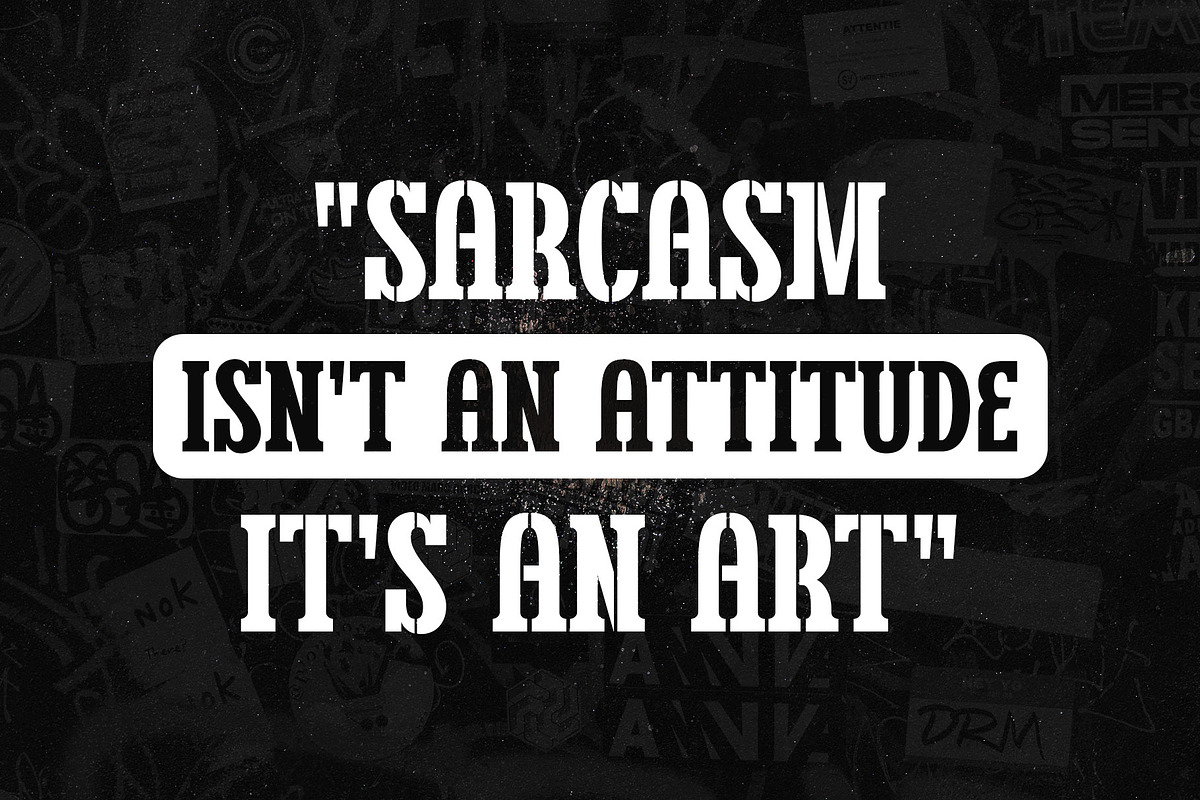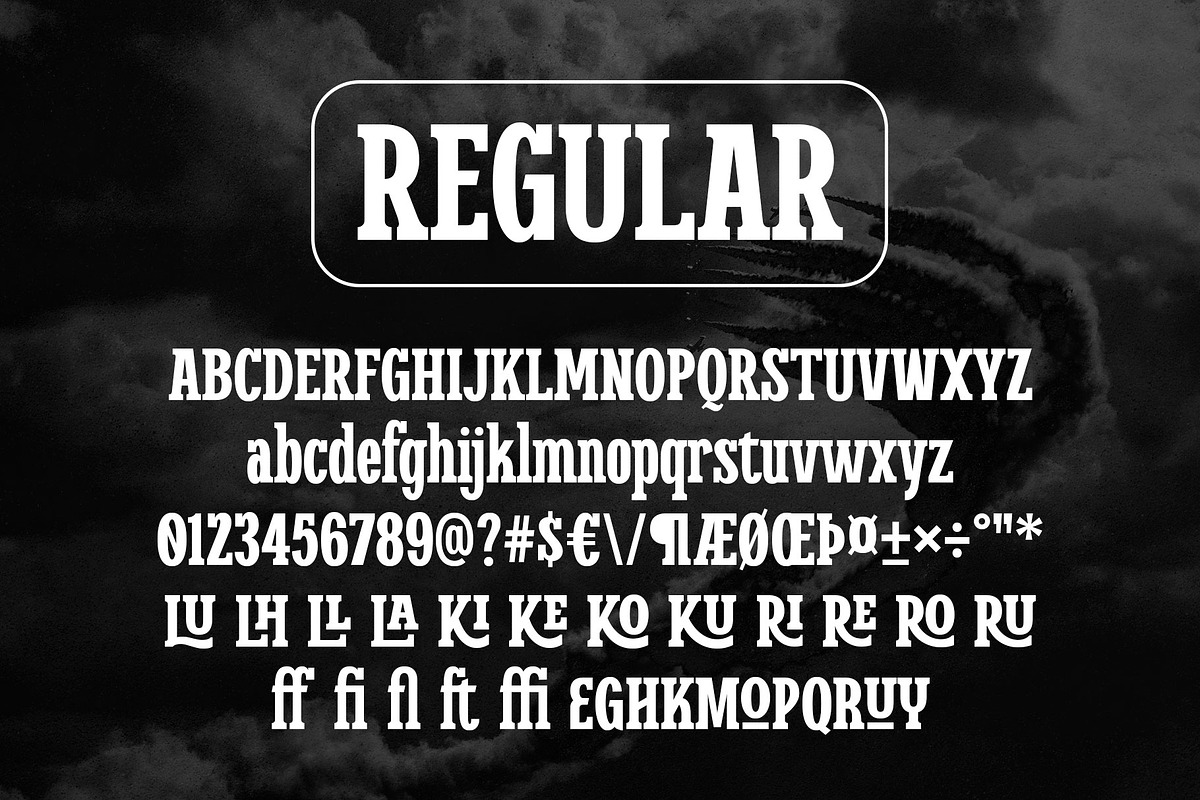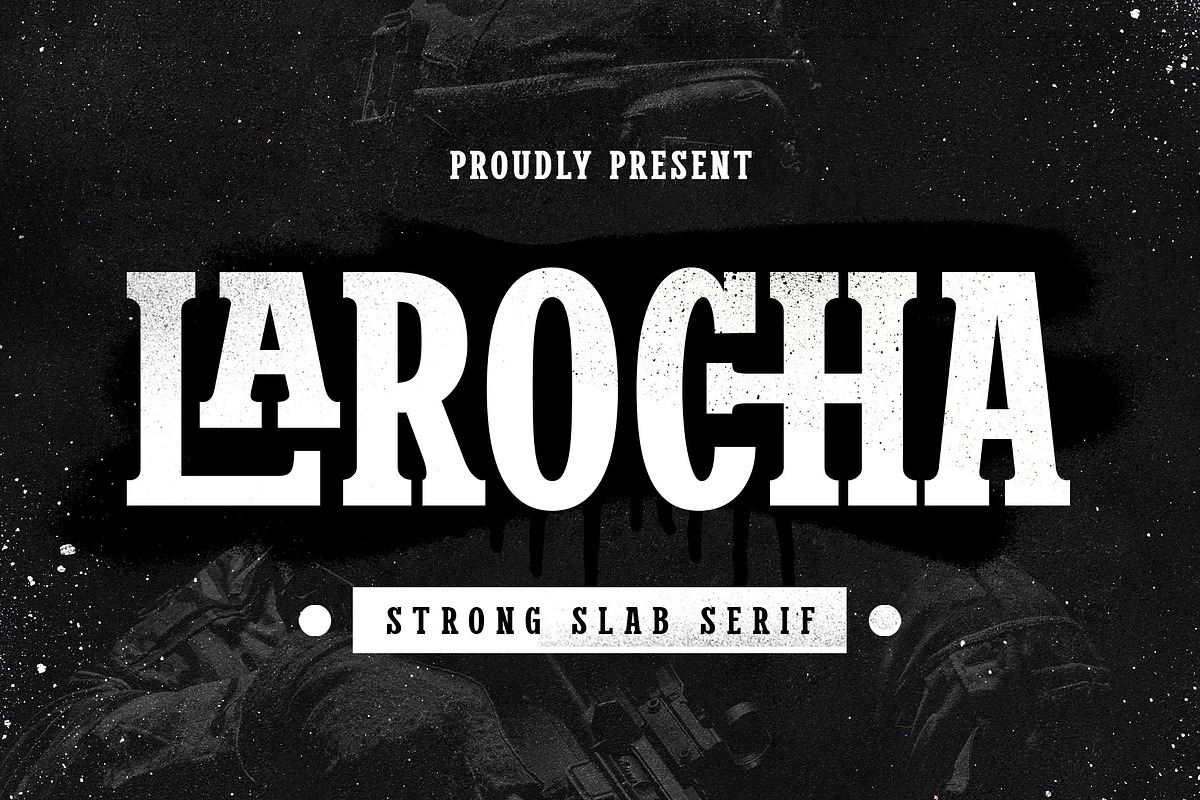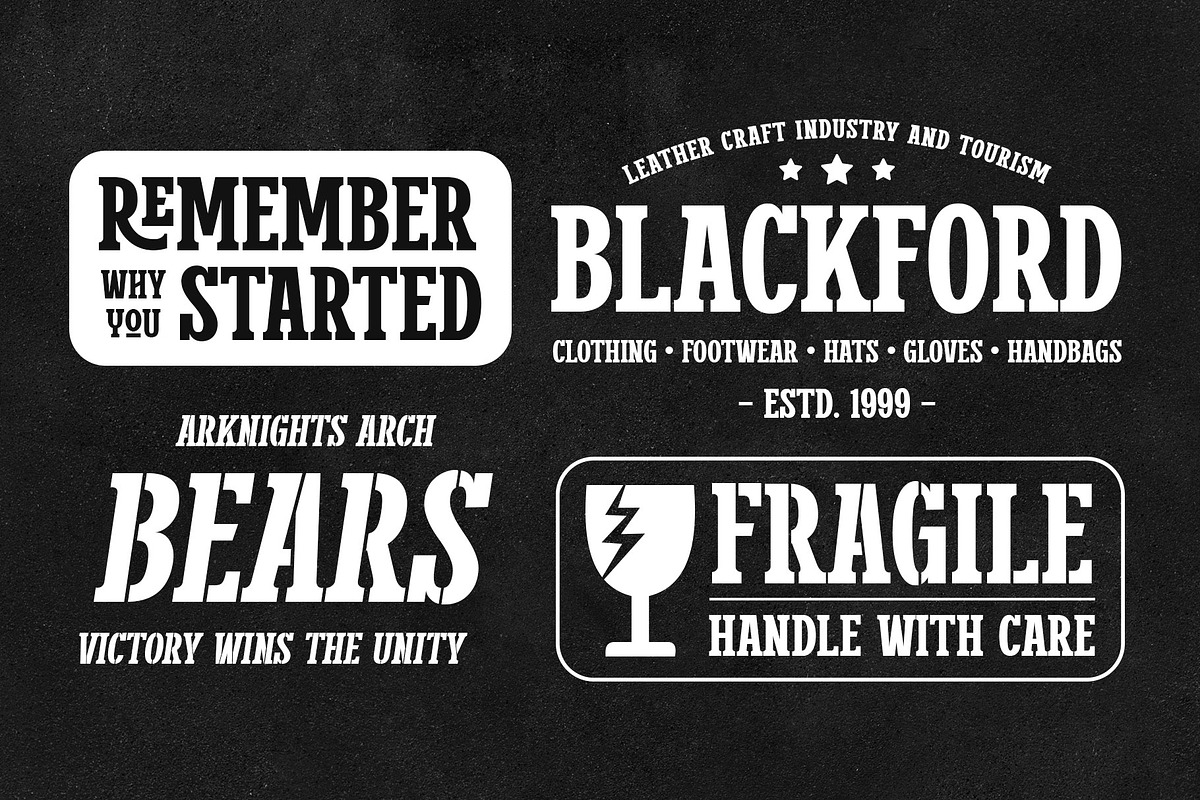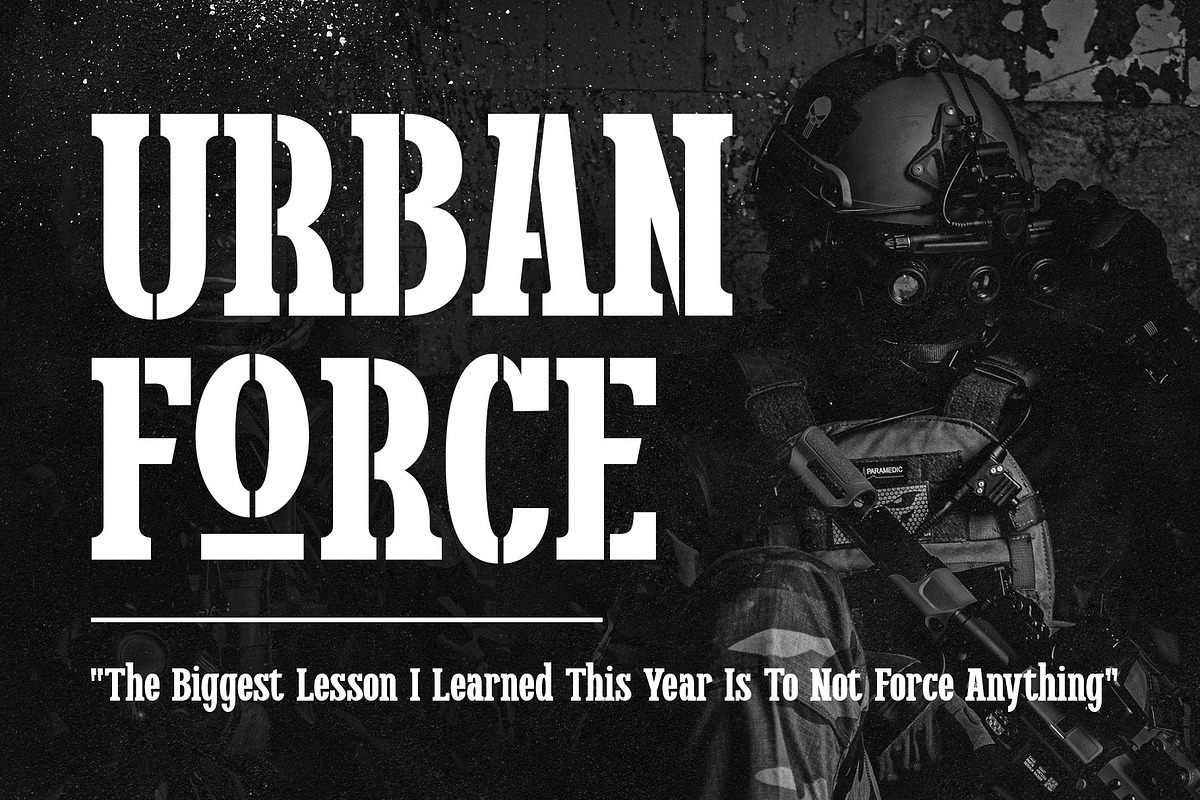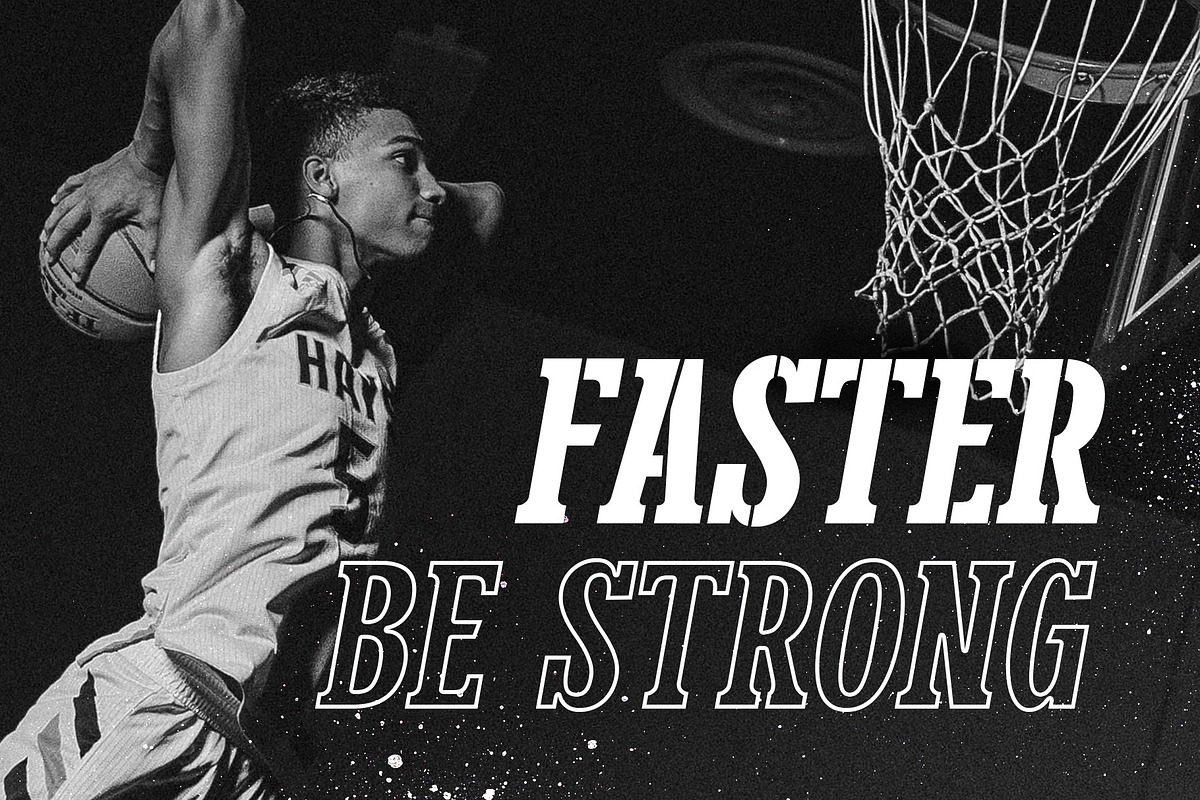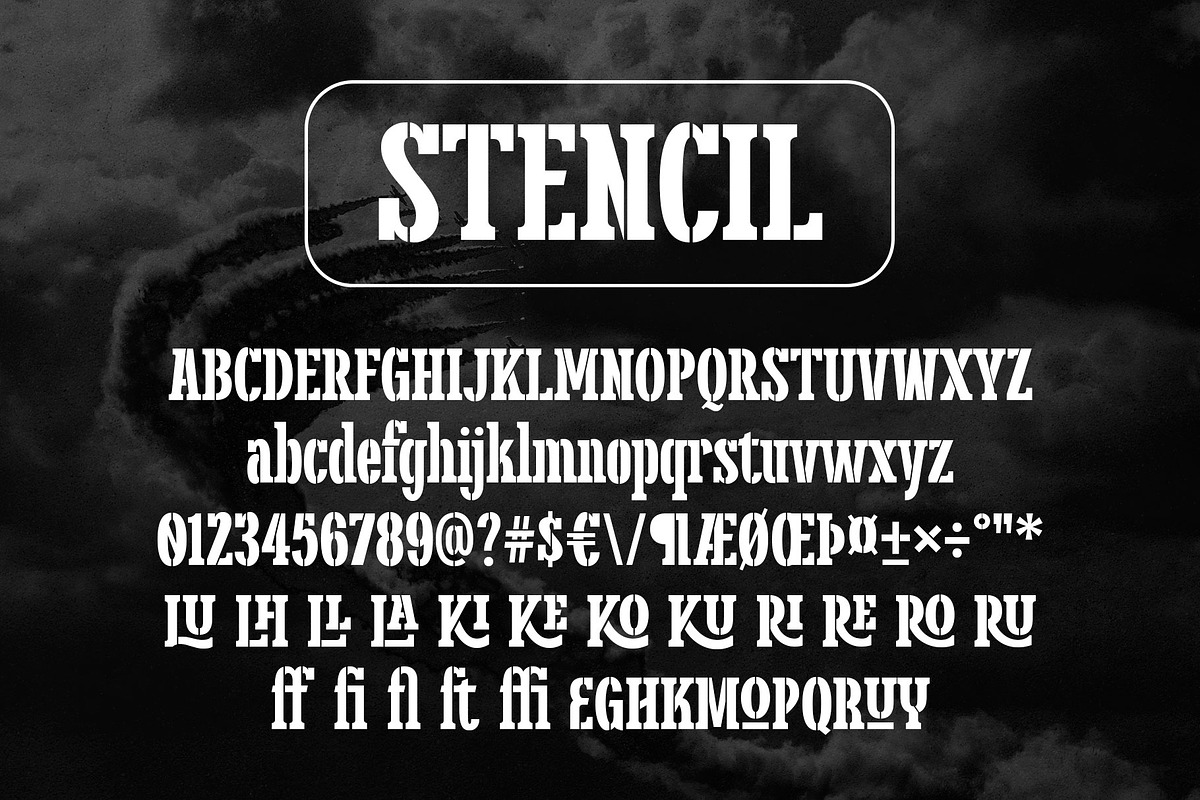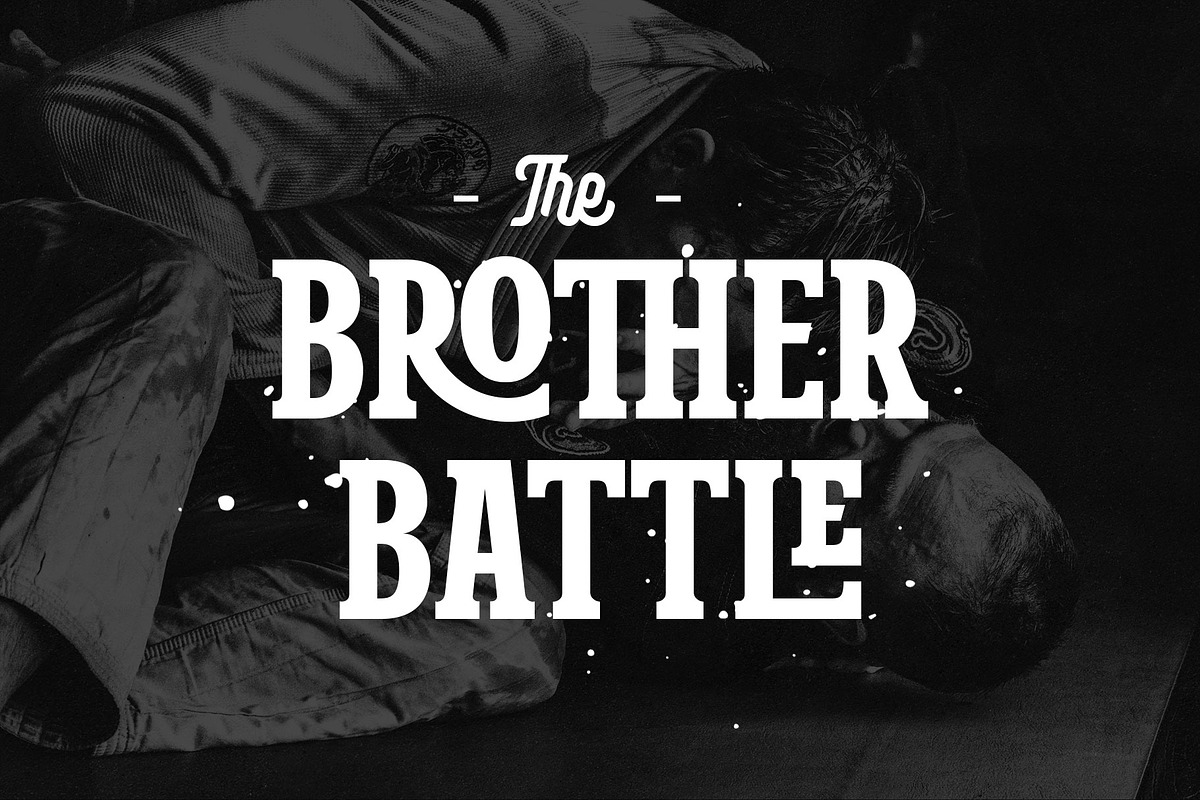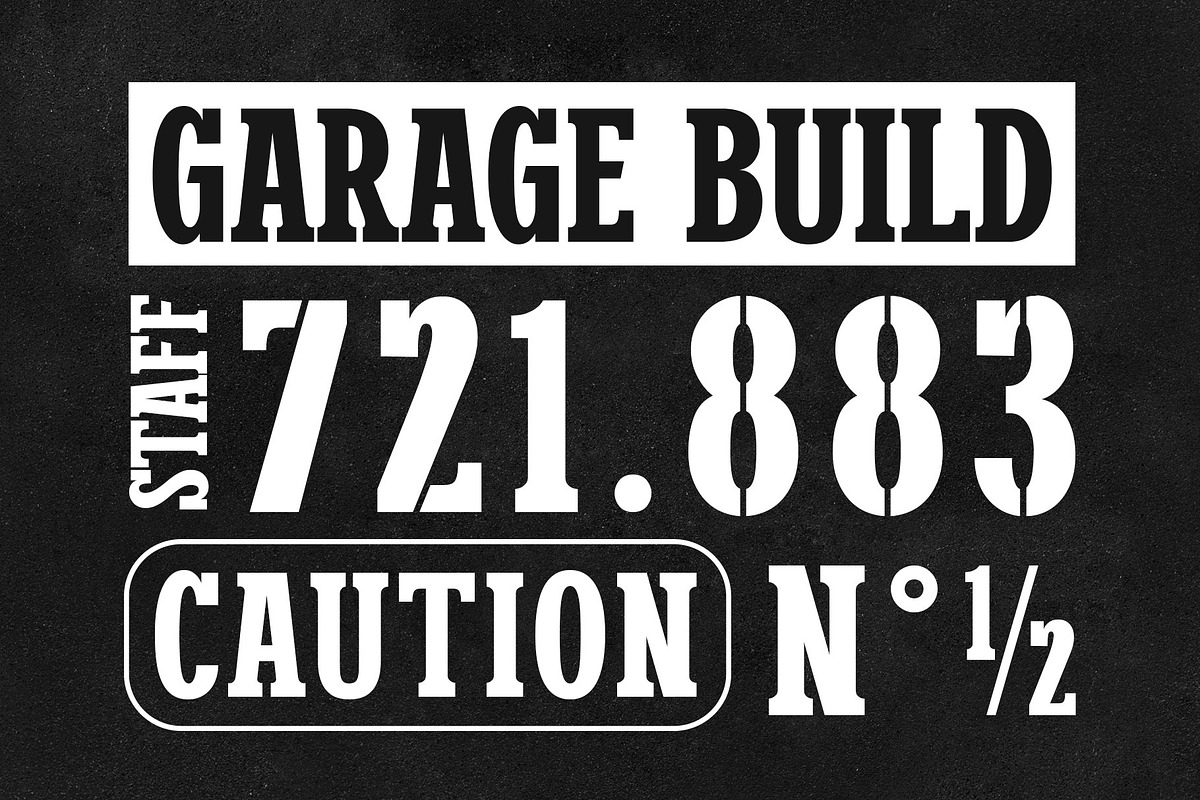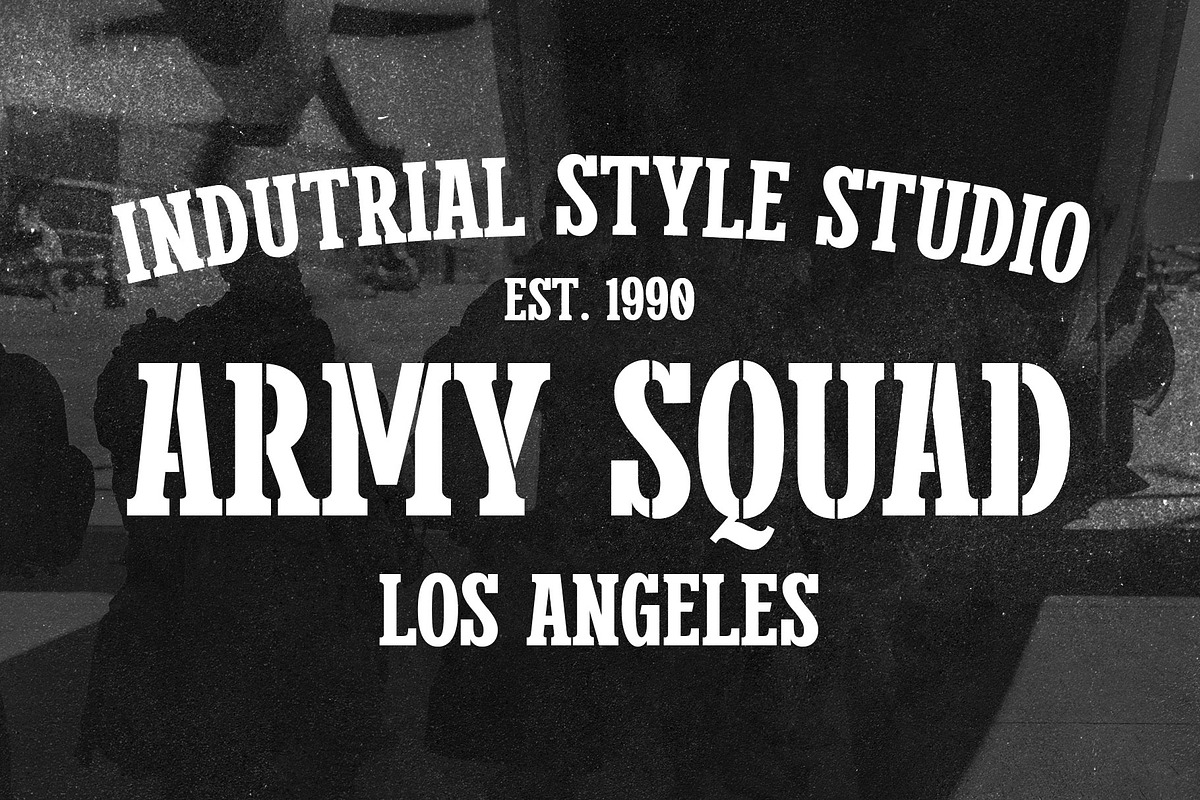
Larocha - Slab
Larocha is a versatile font that brings a touch of elegance to any project. The font features a slab serif design, available in both regular and stencil styles. The regular style is perfect for vintage logos, titles, and quotes, while the stencil style is ideal for signage, labels, and posters.
Suitable for a wide range of themes, including sports, military, and vintage, Larocha is a font that can be used for a variety of purposes. With its alternates and ligatures, this font offers a level of customization that will help you create truly unique designs. Whether you're working on a logo, poster, or any other design project, Larocha is the perfect font to elevate your work.
Fonts featured :
- Stylistic alternates
- Multilingual supports